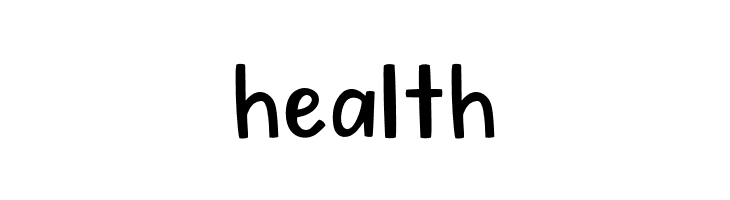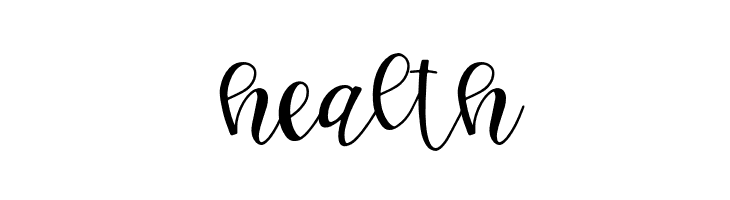
( Roland Huse Design - Roland Huse - rolandhuse.com )
A classic serif font with bold strokes and a traditional, elegant appearance.
( Roland Huse Design - Roland Huse - rolandhuse.com )
A bold, decorative font with intricate patterns and a vintage flair.
( Roland Huse Design - Roland Huse - rolandhuse.com )
A playful and whimsical font with bold strokes and decorative elements.
( Roland Huse Design - Roland Huse - rolandhuse.com )
A bold, high-contrast serif font with distinctive decorative elements.
( Roland Huse Design - Roland Huse - rolandhuse.com )
A whimsical and decorative font with playful curls and ornate details.
( Roland Huse Design - Roland Huse - rolandhuse.com )
A modern sans-serif font with clean lines and balanced proportions.
( Ryan Williamson )
A sleek, modern font with thin, clean lines and a minimalist design.
( Ryan Williamson )
A sleek, modern font with thin, elegant lines and a geometric style.
( Ryan Williamson )
A sleek, minimalist font with thin, uniform lines and a modern aesthetic.
( Ryan Williamson )
A modern, ultra-thin font with geometric precision and elegance.
( Ryan Williamson )
An ultra-thin, modern font with elegant, clean lines.
( Ryan Williamson )
A bold, italic, and condensed font with a modern and sleek design.
( Ryan Williamson )
A bold, condensed font with rounded edges for a modern look.
( Ryan Williamson )
A modern, geometric font with clean lines and balanced spacing.
( Ryan Williamson )
A modern, geometric font with an italic slant and consistent stroke width.
( Ryan Williamson )
A modern, slightly italicized font with a sleek and dynamic design.
( Ryan Williamson )
A modern, condensed, and italicized font with rounded edges and uniform stroke width.
( Ryan Williamson )
A bold, italicized font with a modern, sleek, and slightly condensed style.
( Ryan Williamson )
A modern, bold, italic font with a sleek and compact design.
( Ryan Williamson )
A bold, geometric font with rounded corners and a modern aesthetic.
( Ryan Williamson )
A modern, condensed font with uniform strokes and rounded edges.
( Ryan Williamson )
A modern, geometric font with a clean, monospaced appearance.
( Ryan Williamson )
A bold serif font with sharp serifs and a modern classic style.
( Ryan Williamson )
A bold, high-contrast serif font with pronounced serifs and a dramatic style.
( Ryan Williamson )
A refined and elegant font with thin strokes and subtle curves, perfect for sophisticated designs.
( Ryan Williamson )
A modern serif font with high contrast and sharp serifs, blending elegance with contemporary style.
( Ryan Williamson )
A bold, high-contrast serif font with a dramatic and modern style.
( Ryan Williamson )
A thin, elegant serif font with high contrast and refined details.
( Skyhaven Fonts - fonts.plph.co )
A handwritten font with a casual, organic style and tall, narrow uppercase letters.
( Skyhaven Fonts - fonts.plph.co )
A tall, narrow handwritten font with a casual, informal style.
( Skyhaven Fonts - fonts.plph.co )
A modern, geometric font with bold uppercase letters and numerals.
( Skyhaven Fonts - fonts.plph.co )
A futuristic, geometric font with sharp angles and clean lines.
( Skyhaven Fonts - fonts.plph.co )
A bold, geometric font with high contrast and distinctive shapes.
( Skyhaven Fonts - fonts.plph.co )
A modern, geometric font with sharp angles and clean lines.
( Skyhaven Fonts - fonts.plph.co )
A modern, geometric sans-serif font with clean lines and balanced spacing.